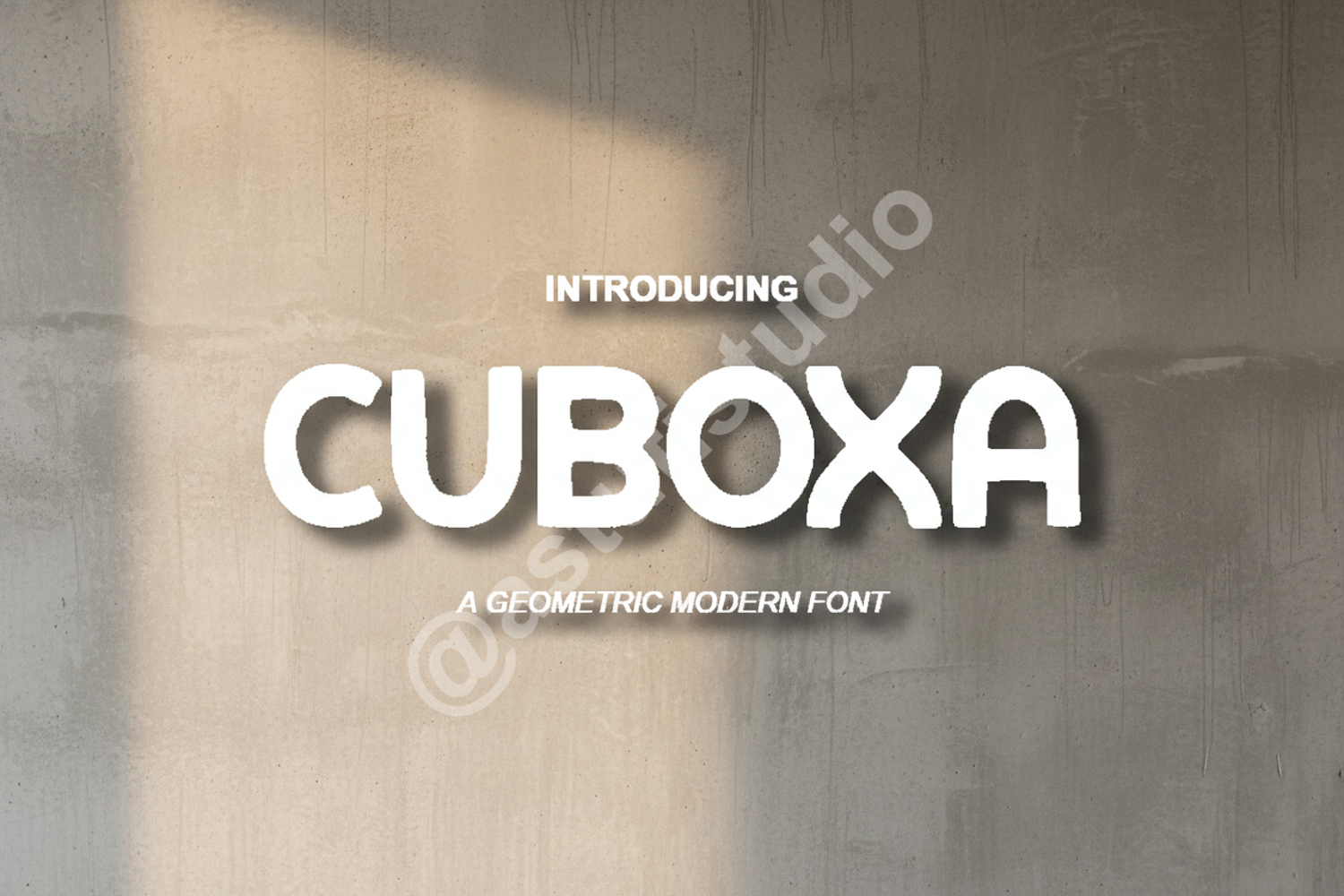
Cuboxa - Elegant Modern Geometric Sans Serif
Cuboxa
Cuboxa is a masterfully crafted geometric sans-serif typeface that embodies modern elegance and precision. Designed for creators who demand high-quality aesthetics, Cuboxa offers a clean and versatile look that works seamlessly across various digital and print mediums. Its balanced proportions and sharp details make it an essential addition to any designer's toolkit.
- Comprehensive Glyph Set
- Numbers and Punctuation
- Multilingual Support for global projects
- Professional Branding and Corporate Identity
- Minimalist Logo Design and Wordmarks
- Editorial Layouts and Magazine Headlines
- Modern Website Headers and User Interfaces
- High-end Packaging and Promotional Materials